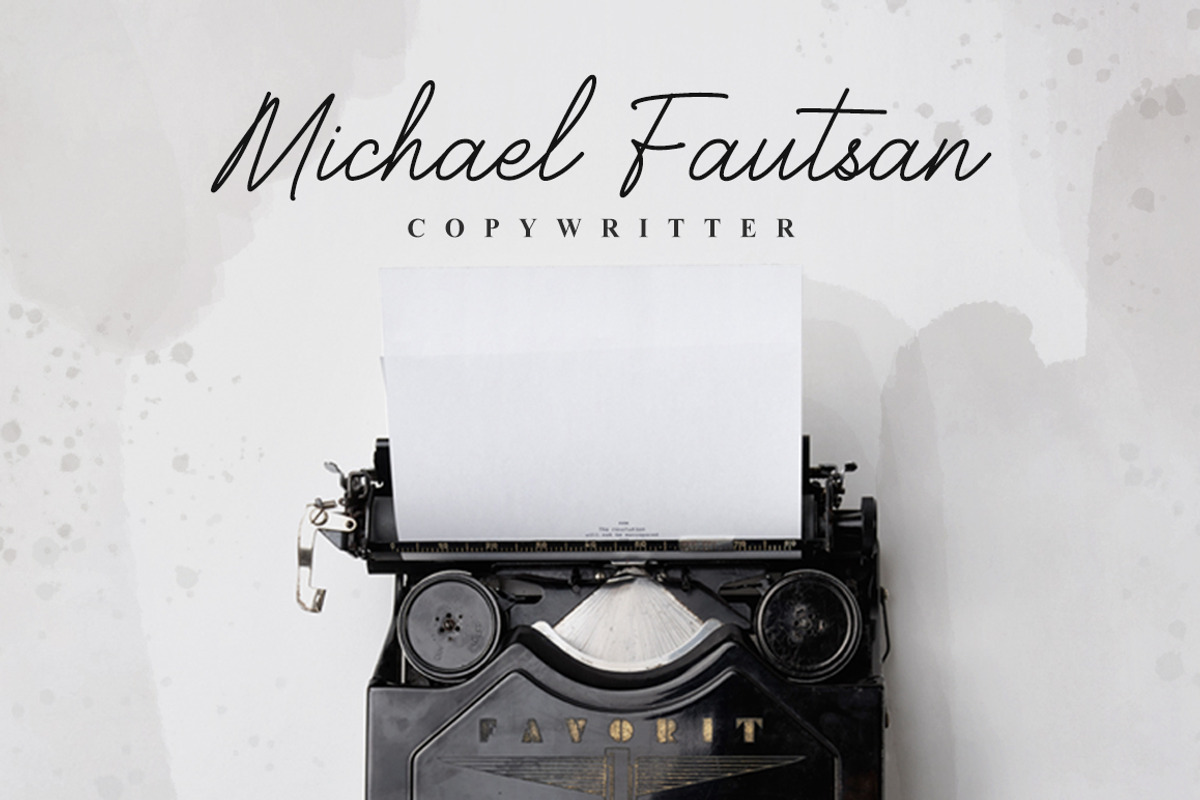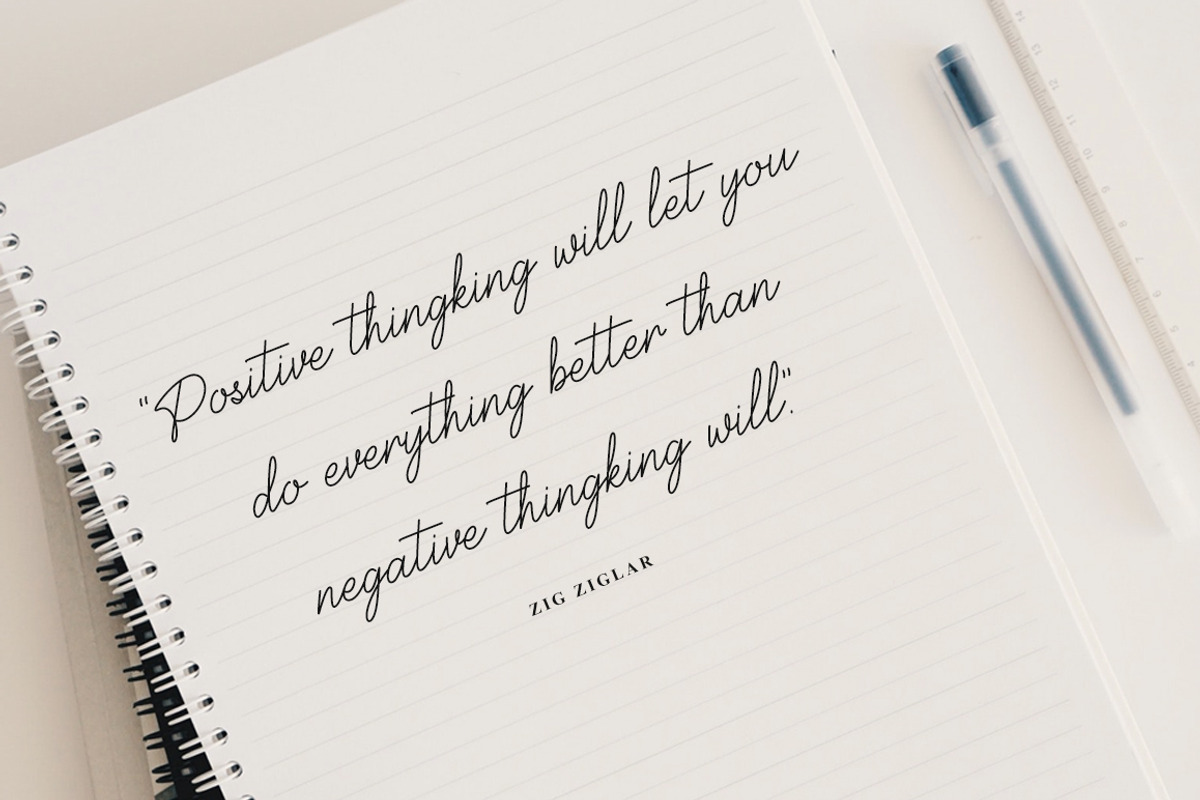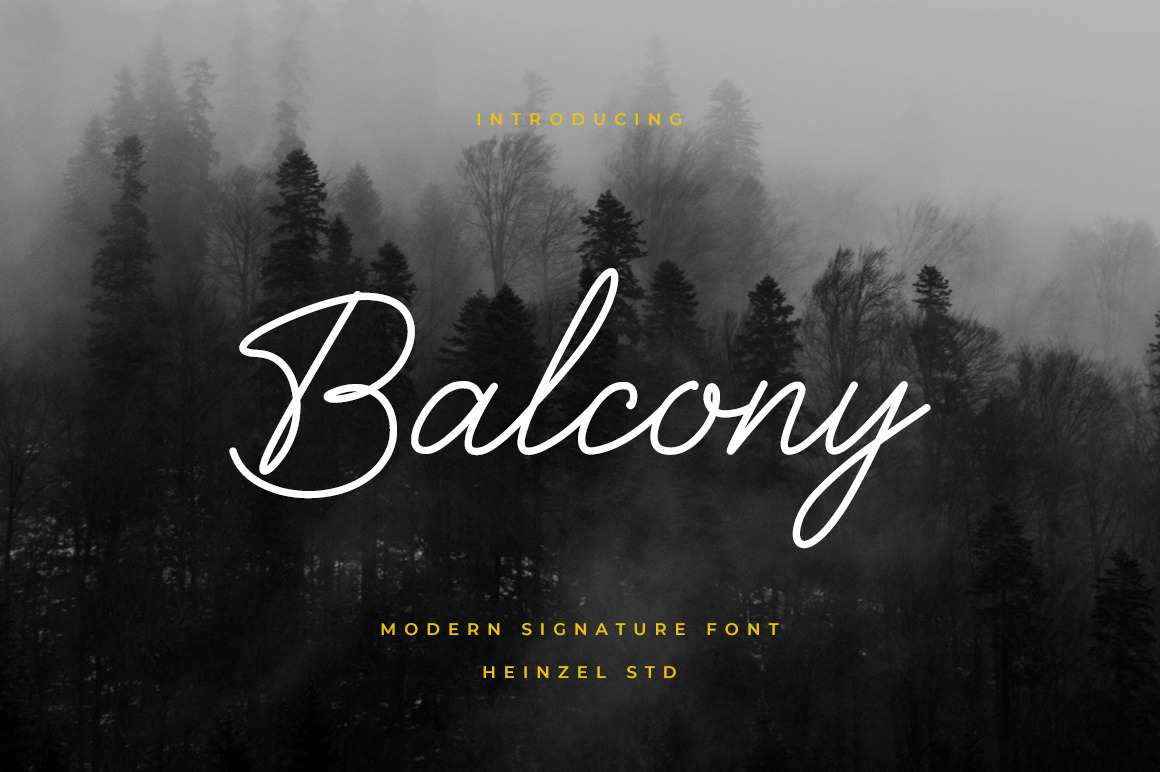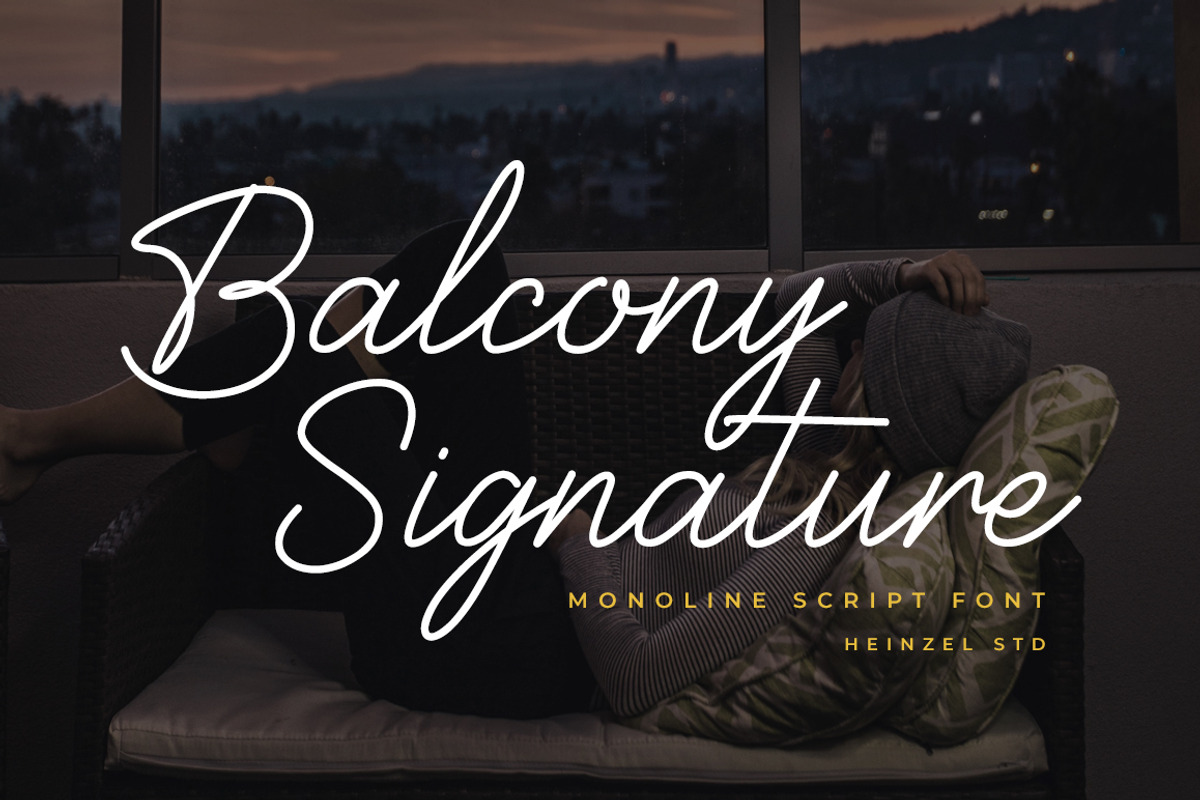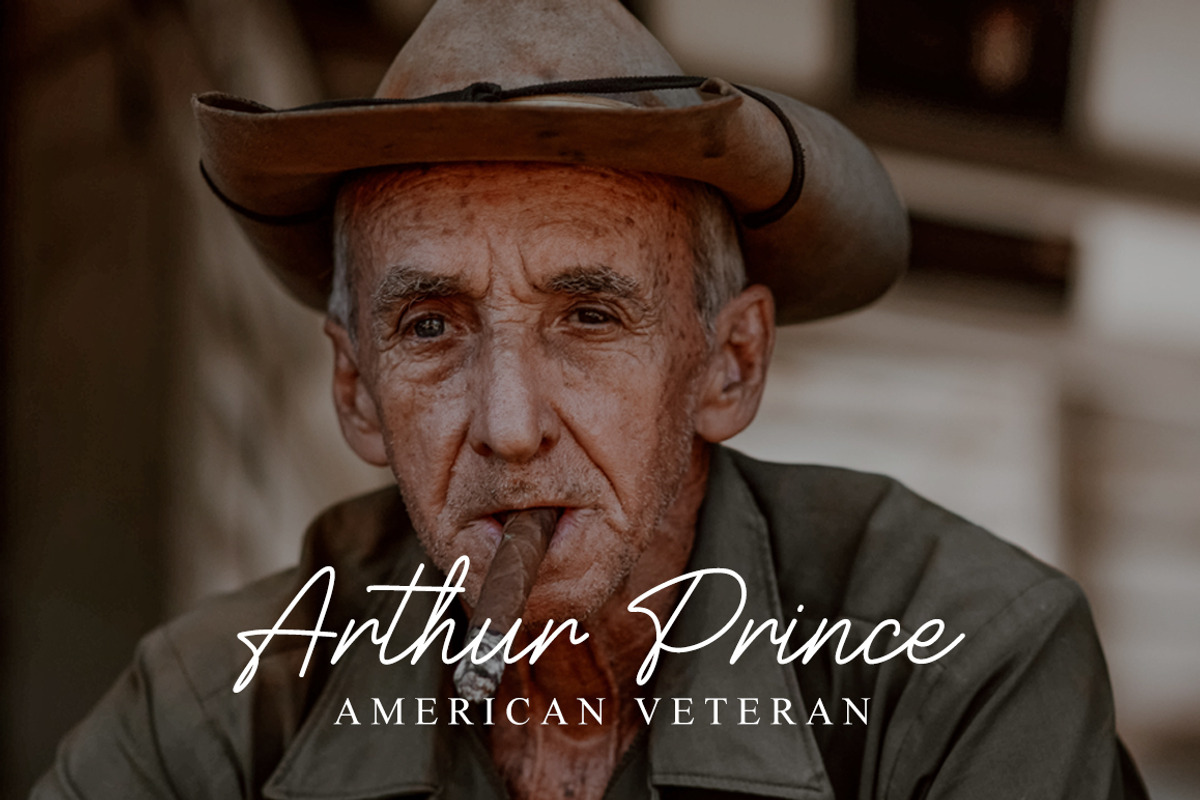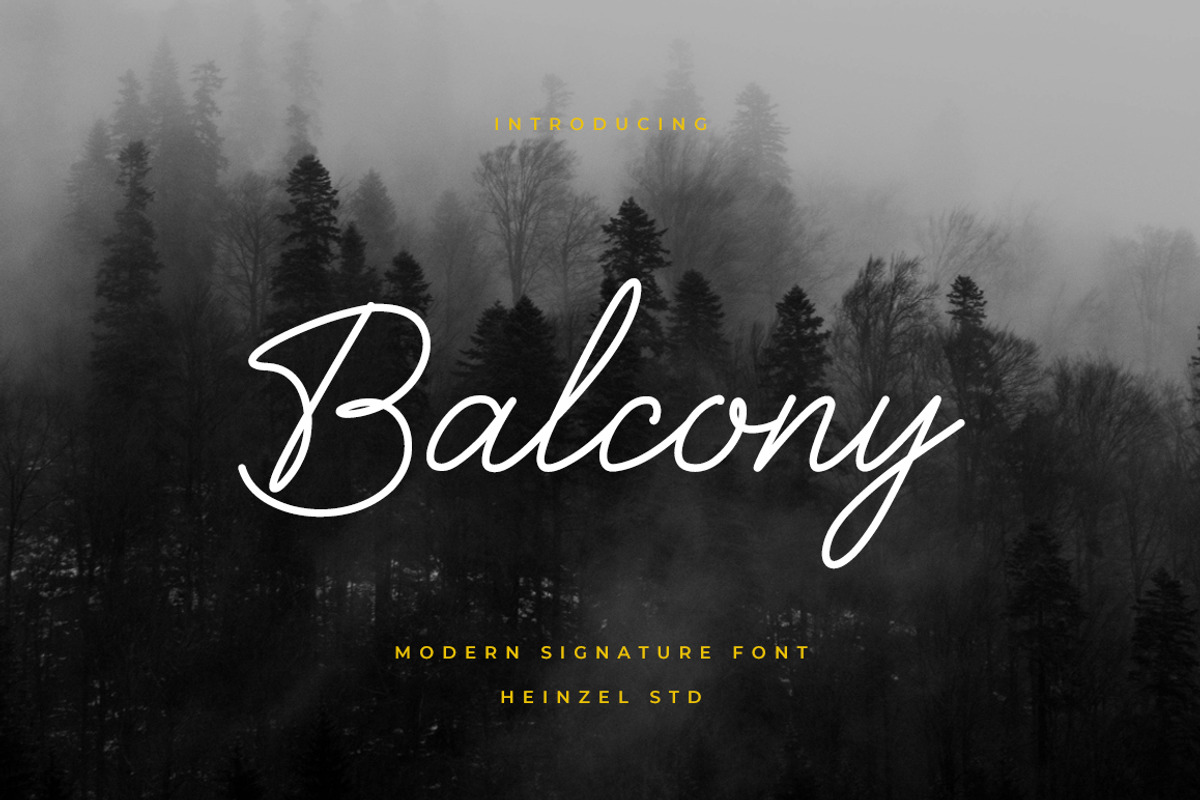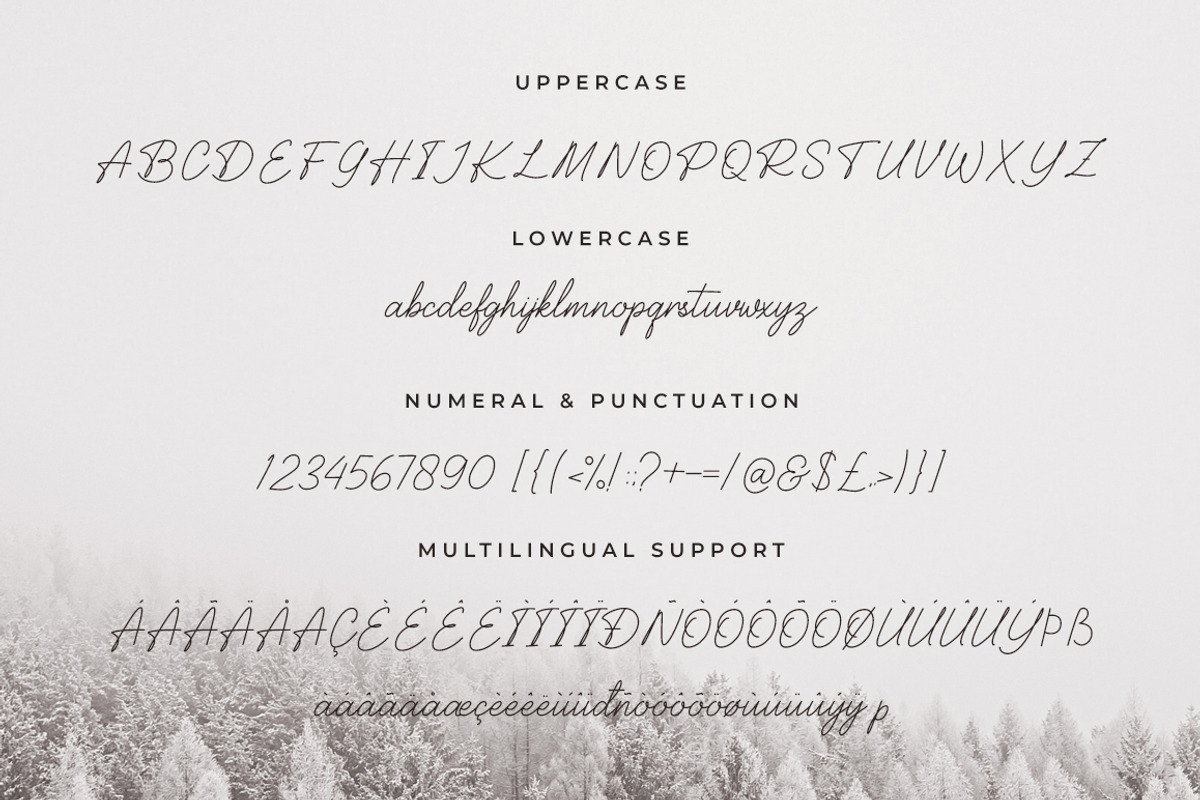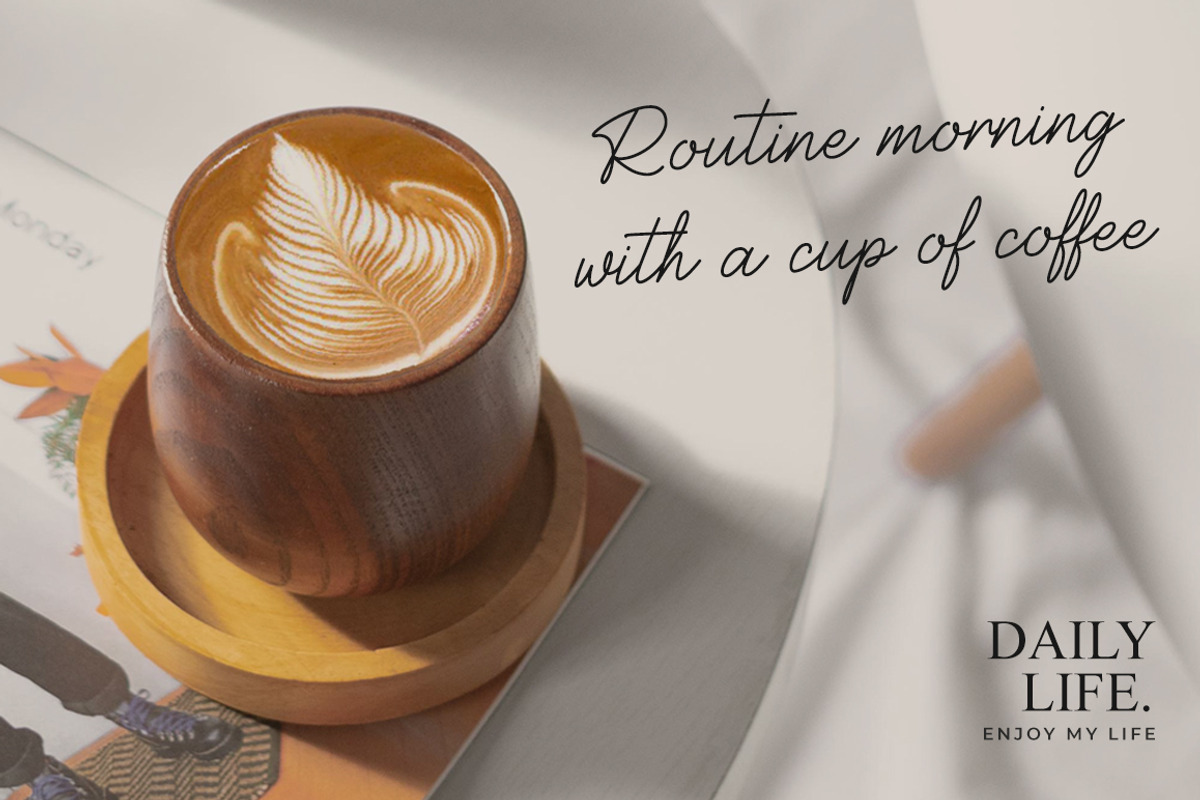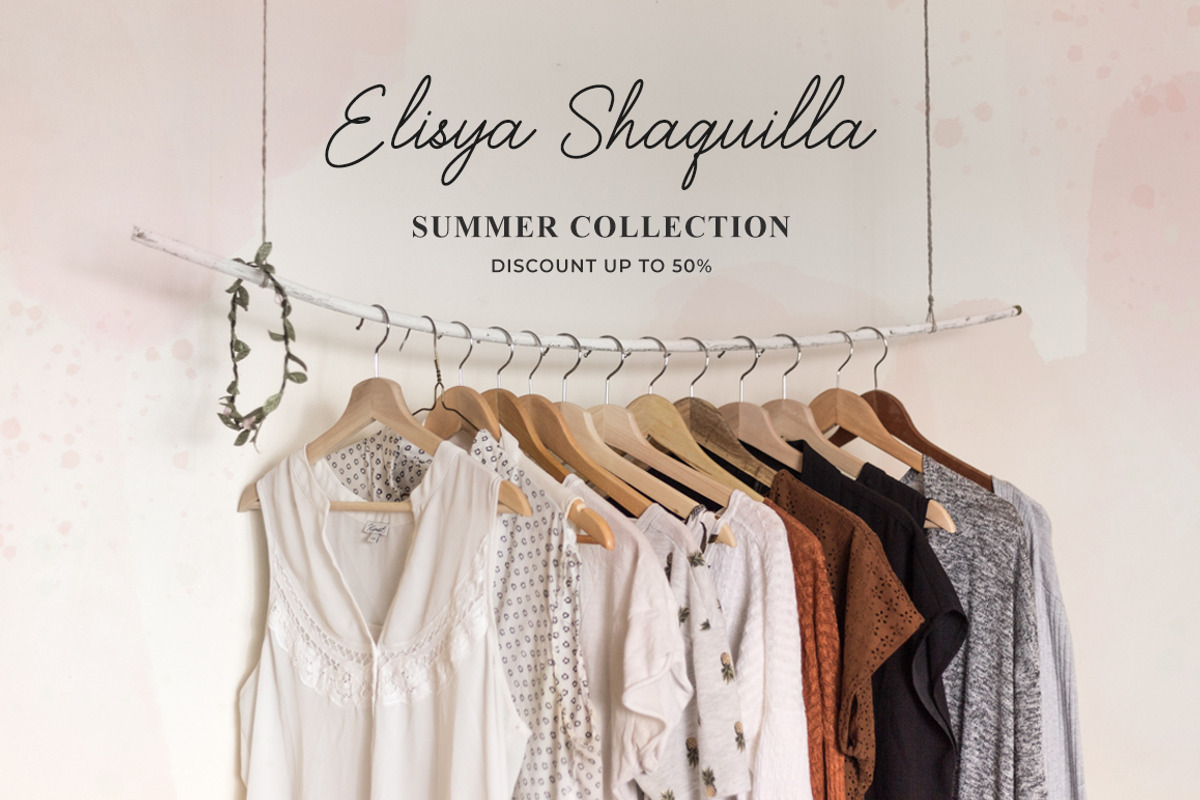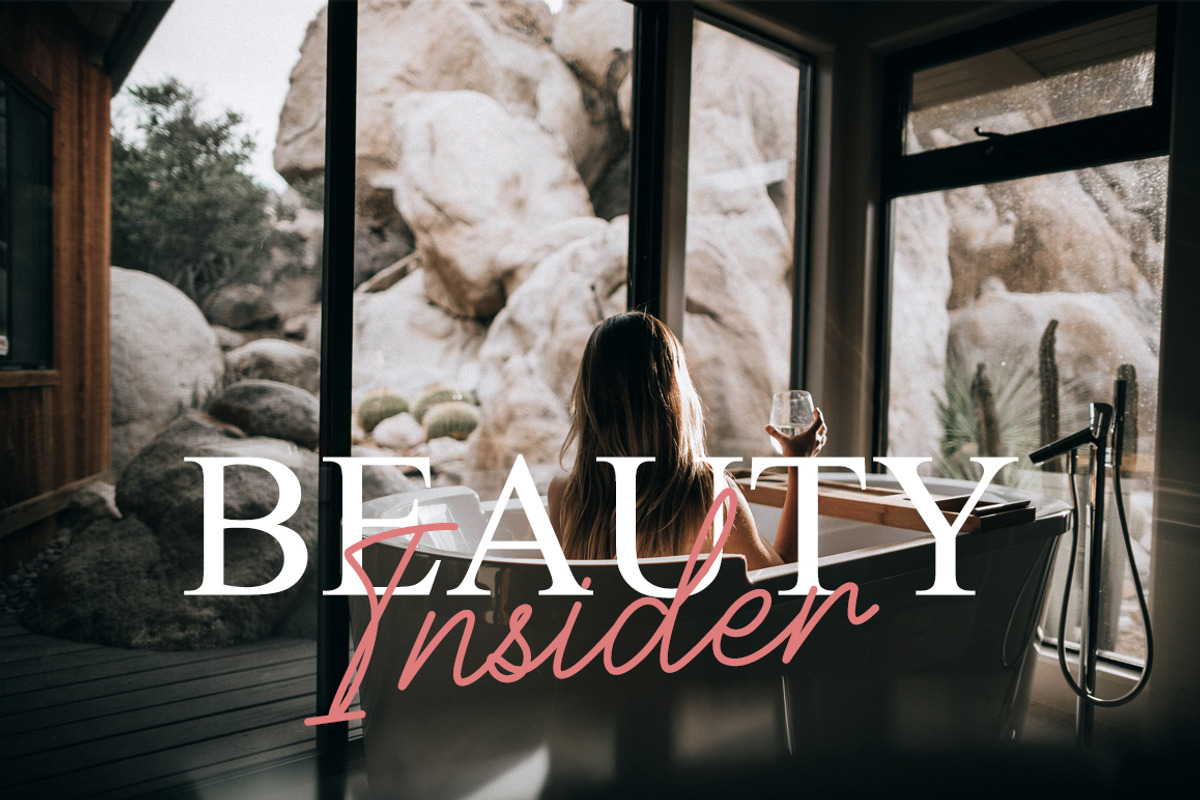
Balcony Handwritten Font
Balcony is a flowing handwritten font, described by an elegant touch, perfect for your favorite projects. Fall in love with its incredibly distinct and timeless style and use it to create spectacular designs!